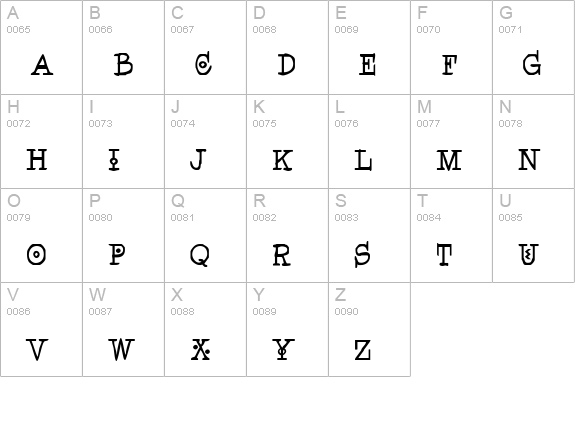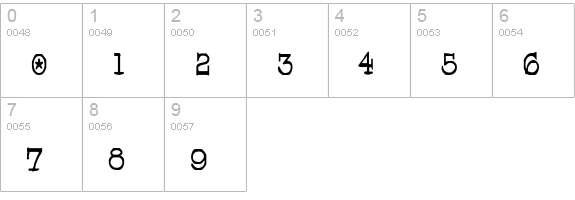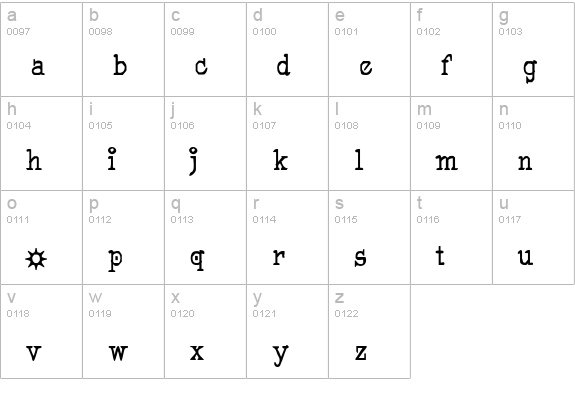
Pegyptienne Font Details
Pegyptienne font is a stunning typeface that beautifully blends the elegance of traditional Egyptian design with a modern twist. Its unique style captures the essence of ancient Egyptian hieroglyphics while still maintaining a contemporary feel. This font is perfect for adding a touch of sophistication to any project, whether it's a logo, branding, or a printed design. With its clean lines and intricate details, Pegyptienne font is sure to make a statement. Each letter has been meticulously crafted to showcase the rich history and cultural heritage of Egypt. From the bold strokes to the delicate serifs, every element of this font exudes a sense of grandeur and majesty. One of the best things about Pegyptienne font is that it is free to download at FontsMarket.com. This means that you can easily access this stunning typeface without having to spend a dime. It's a fantastic opportunity to enhance your creative projects without breaking the bank. Whether you're a professional designer or just someone who appreciates beautiful typography, Pegyptienne font is a must-have in your font library. Its versatility allows it to be used in various design contexts, making it suitable for both digital and print applications. The attention to detail and the timeless appeal of this font will surely elevate your designs and leave a lasting impression on your audience. So why wait? Head over to FontsMarket.com and download Pegyptienne font for free today. With its captivating design and wide range of applications, this font is sure to become a go-to choice for all your design needs. Don't miss out on the opportunity to add this stunning typeface to your collection.